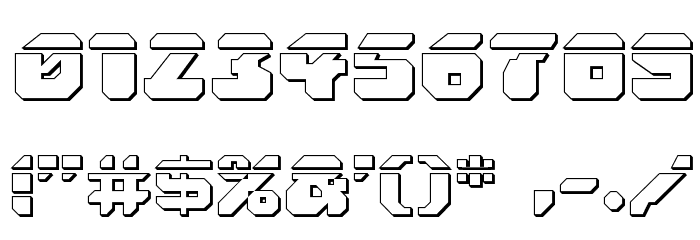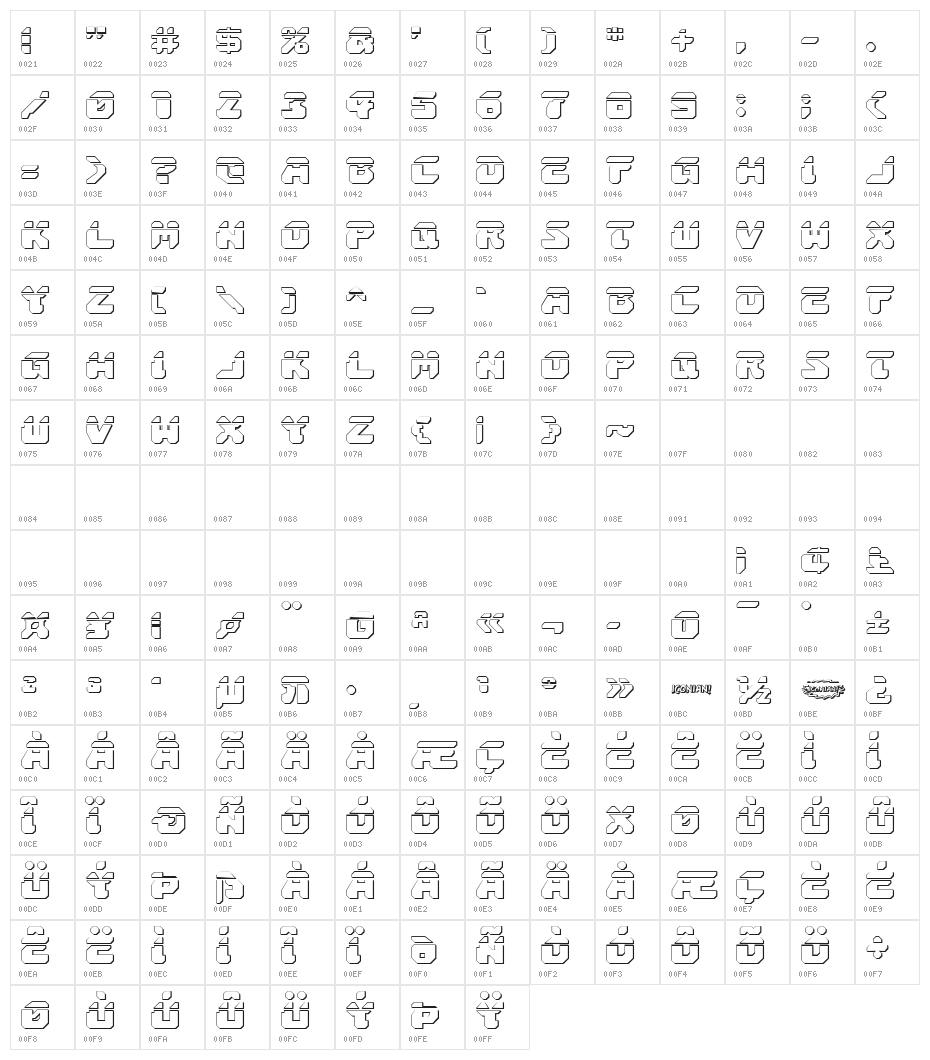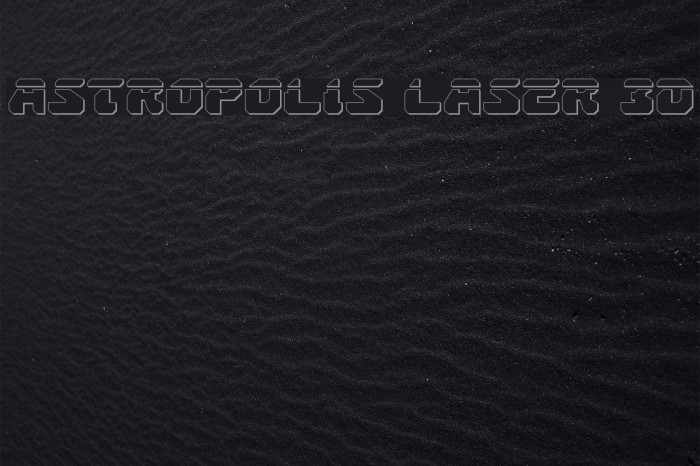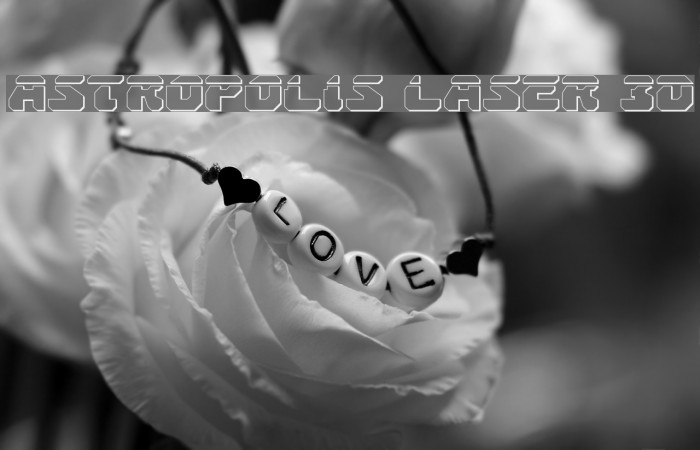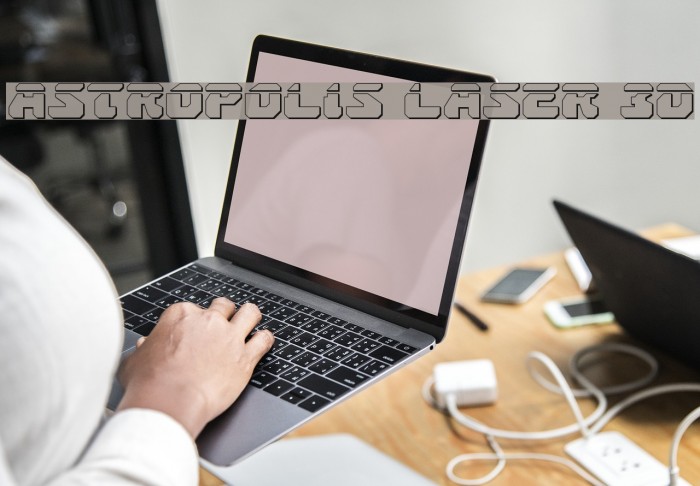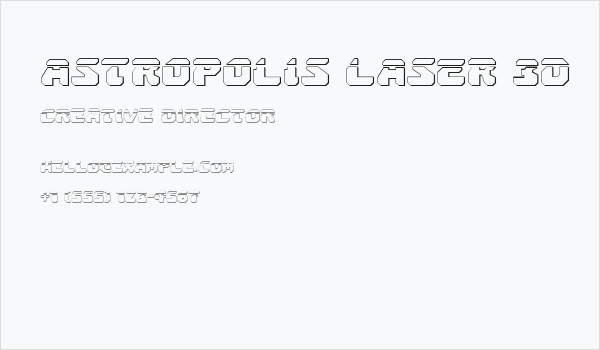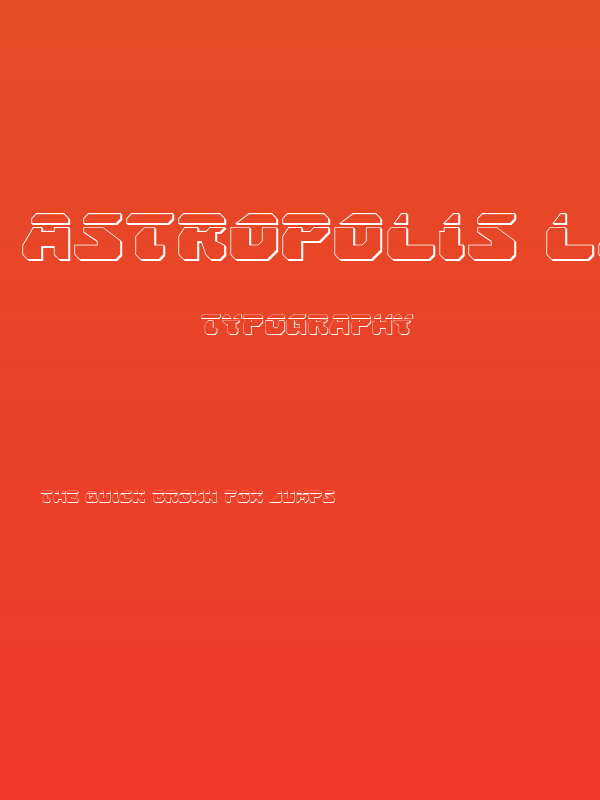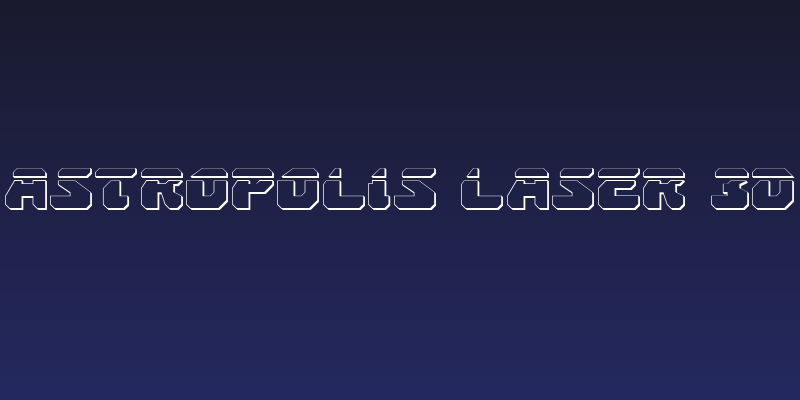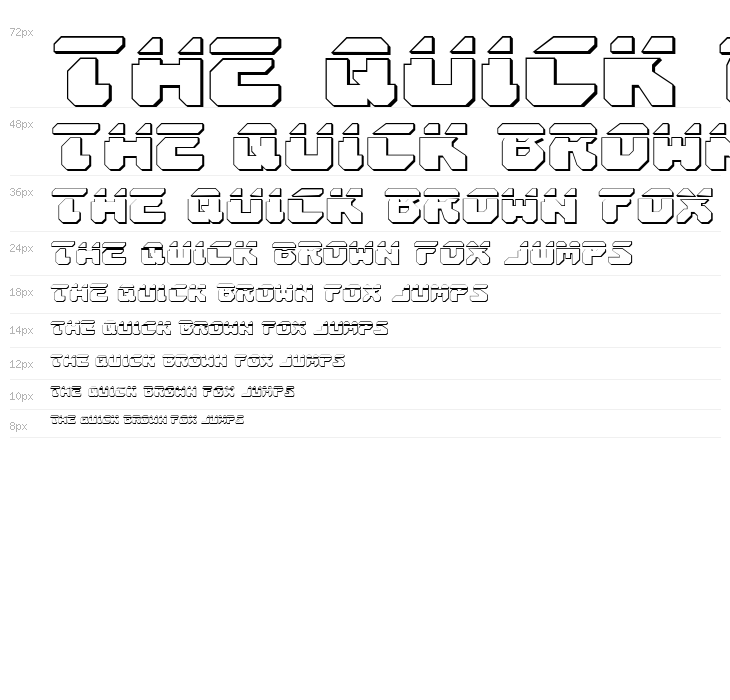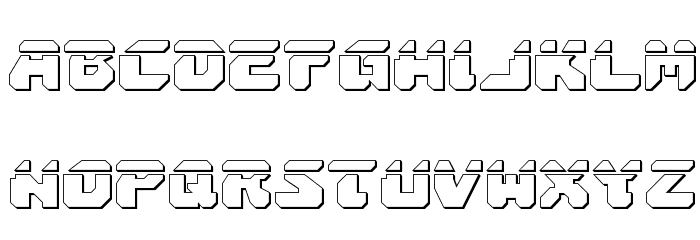
Astropolis Laser 3D Font
Astropolis Laser 3D Description
This font features a futuristic, geometric design with a 3D effect that gives each character a distinct, bold appearance. The letters are constructed with sharp angles and clean lines, creating a sense of depth and dimension. The uppercase and lowercase letters maintain a consistent style, with the lowercase being slightly smaller but equally bold. The numerals and special characters follow the same design principles, ensuring uniformity across all glyphs. This font's unique style is reminiscent of digital or sci-fi themes, making it stand out in any design project.
Overall StyleFuturistic
Proposed ProjectsIdeal for sci-fi themed designs, video game titles, tech branding, and futuristic posters.